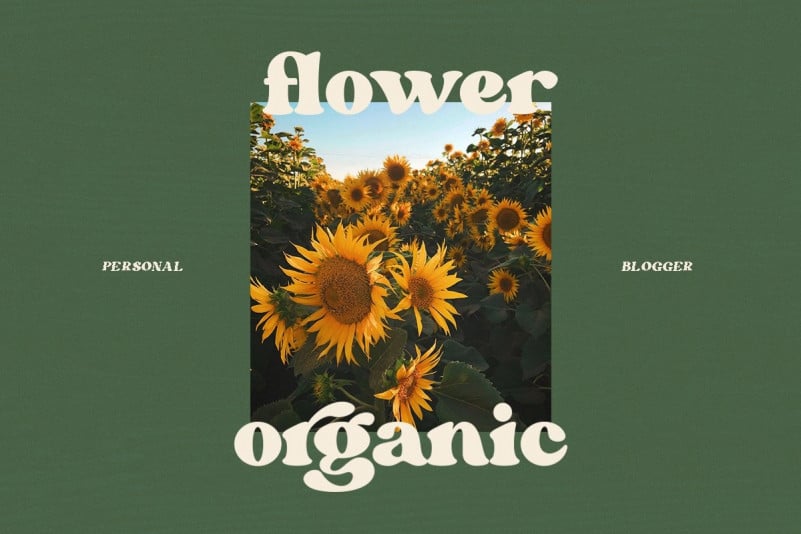
Margin Serif Font
Margin Serif Font is a new serif typeface that’s vintage in the 70s style, has a bold shape, with a pretty alternative and is multilingual, making it incredibly versatile. This font has a unique shape, especially if the alternative has a thick, threaded shape that makes this font unique.
Margin fits perfectly into those nostalgic moodboards and vintage logos. It come with a unique lower and uppercase plus numbers, punctuation & multilingual letters.